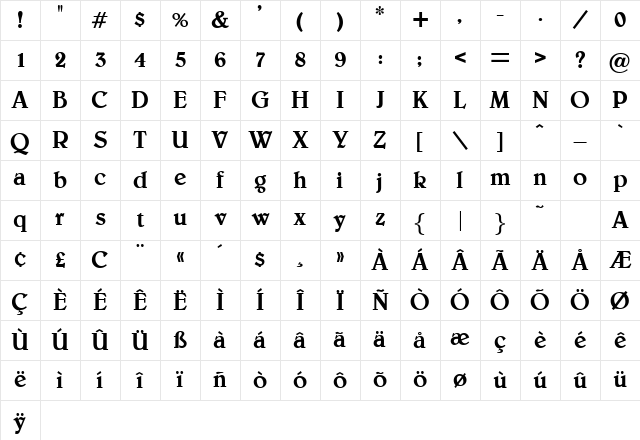
Belton Regular
Design Context for Belton
Belton is a composed and adaptable typeface that performs quietly and consistently across a wide range of design contexts.